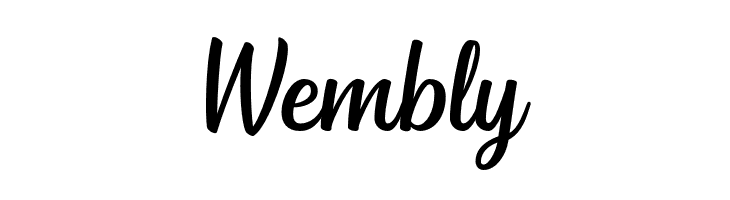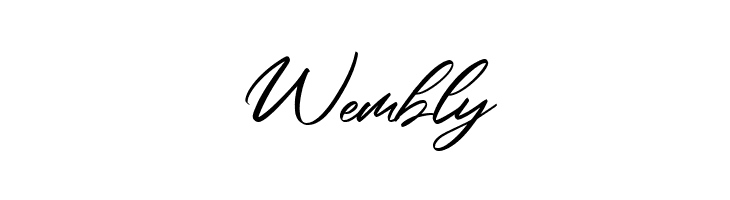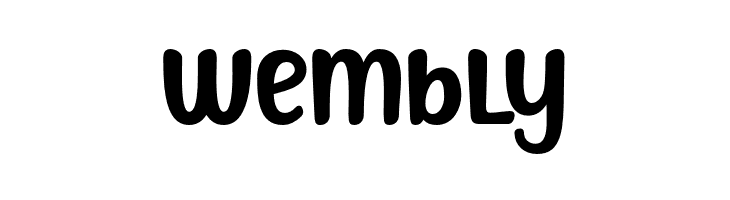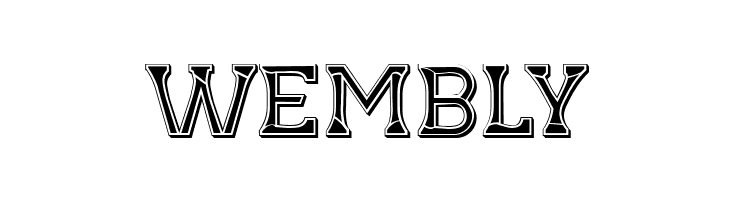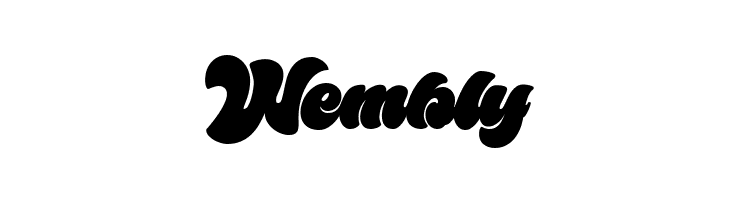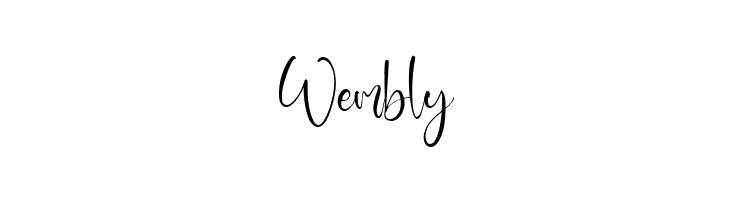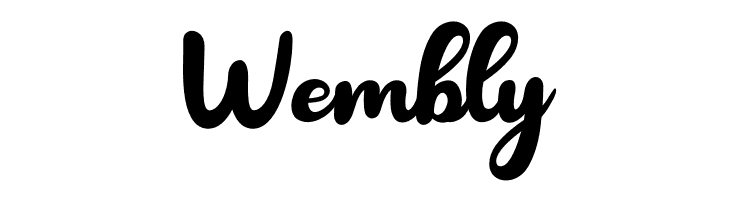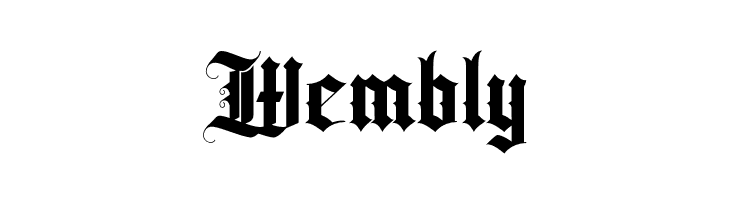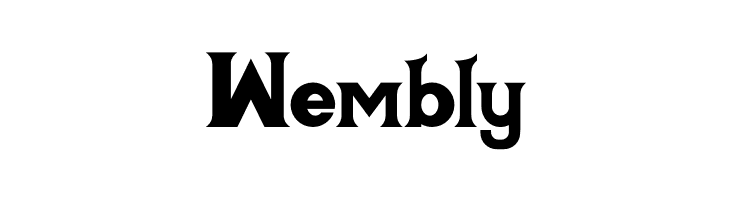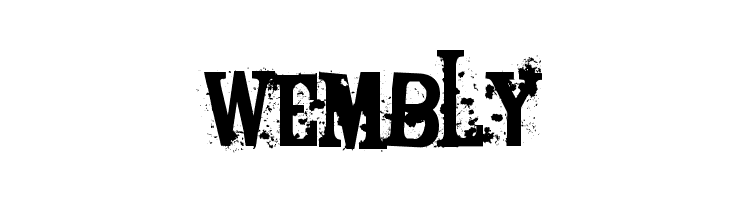
A decorative font resembling intertwined branches with a naturalistic style.
A bold, Halloween-themed font with playful, spooky elements.
A rustic, branch-inspired font with an organic, naturalistic style.
A bold, playful Halloween-themed font with jack-o'-lantern faces on each character.
A bold, distressed font with a grunge texture, ideal for impactful designs.
An elegant, cursive font with flowing, interconnected letters and ornate flourishes.
An elegant, italicized script font with flowing, connected strokes.
A dynamic, brush-style cursive font with a hand-drawn appearance.
A playful, bold font with rounded edges and a hand-drawn style.
A delicate and elegant script font with flowing, thin strokes.
A delicate and flowing script font with elegant cursive letterforms.
A bold, playful display font with artistic and whimsical elements.
A bold, decorative font with a double-line shadow effect.
A dynamic and flowing script font with elegant, cursive letterforms.
A playful handwritten font with smooth, flowing lines and a casual aesthetic.
A modern, geometric sans-serif font with a clean and balanced design.
A bold, textured brush font with a dynamic and edgy style.
A modern, decorative font with elegant uppercase and script-like lowercase letters.
A playful, hand-drawn font with tall, narrow characters and bold strokes.
A bold, dynamic font with angular strokes and sharp serifs, blending modern and vintage styles.
A bold, playful script font with a smooth, handwritten style.
A dynamic and elegant script font with fluid, cursive strokes.
A dynamic, cursive handwritten font with fluid strokes and elegant connections.
A bold, ornate blackletter font with a medieval, gothic style.
A bold, ornate blackletter font with intricate details and gothic flair.
A dynamic and elegant script font with smooth, flowing letterforms.
A cursive, handwritten-style font with elegant, flowing strokes.
A fluid, elegant script font with a natural handwriting style.
A bold, playful handwritten font with rounded, smooth strokes.
A bold, playful font with thick, rounded strokes and a whimsical style.
An elegant and flowing script font with ornate uppercase letters and graceful lowercase forms.
A casual, handwritten font with a playful and informal style.
A flowing, cursive script font with elegant loops and swashes.
A bold, fiery font with dynamic flame-like accents.
A modern, elegant script font with flowing, cursive characters.